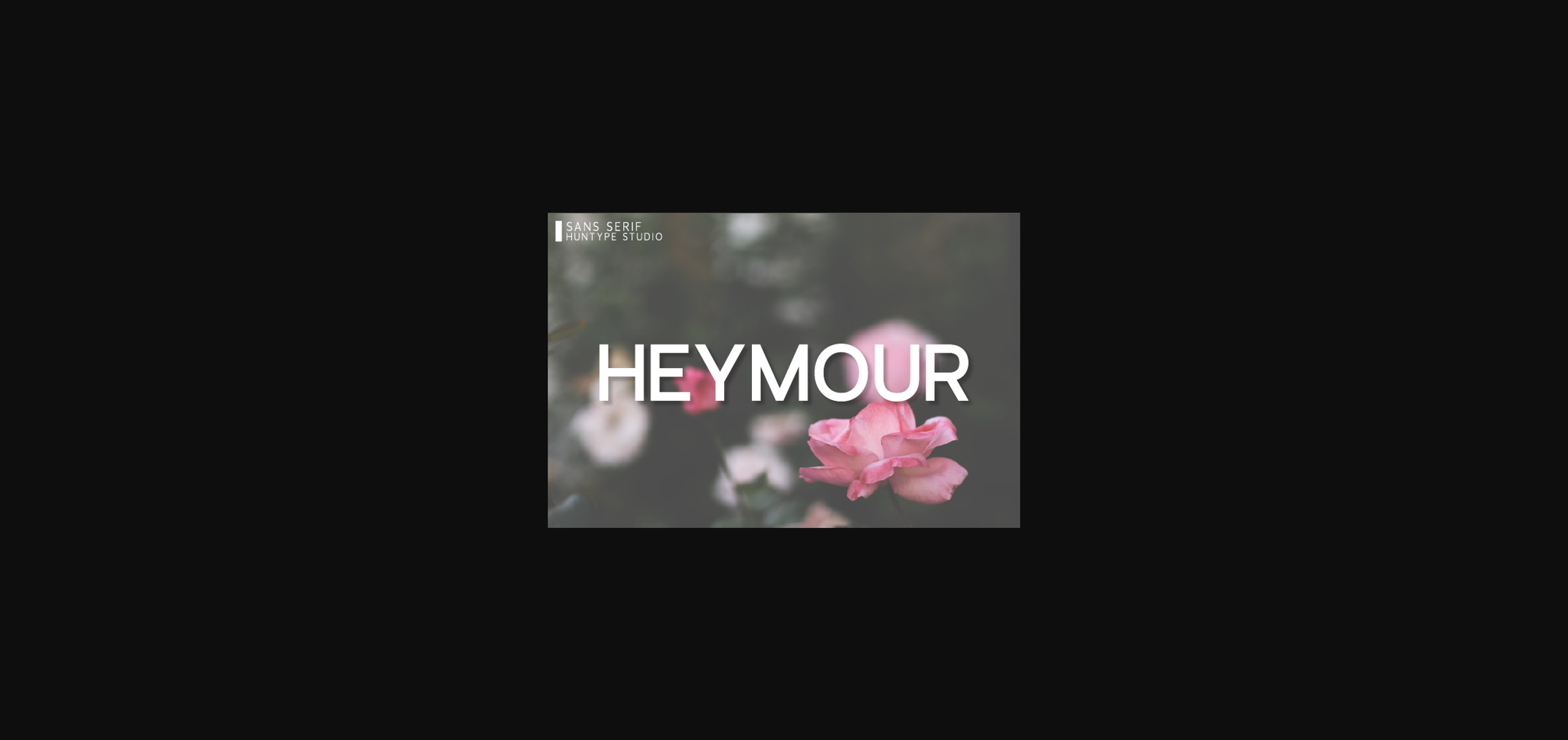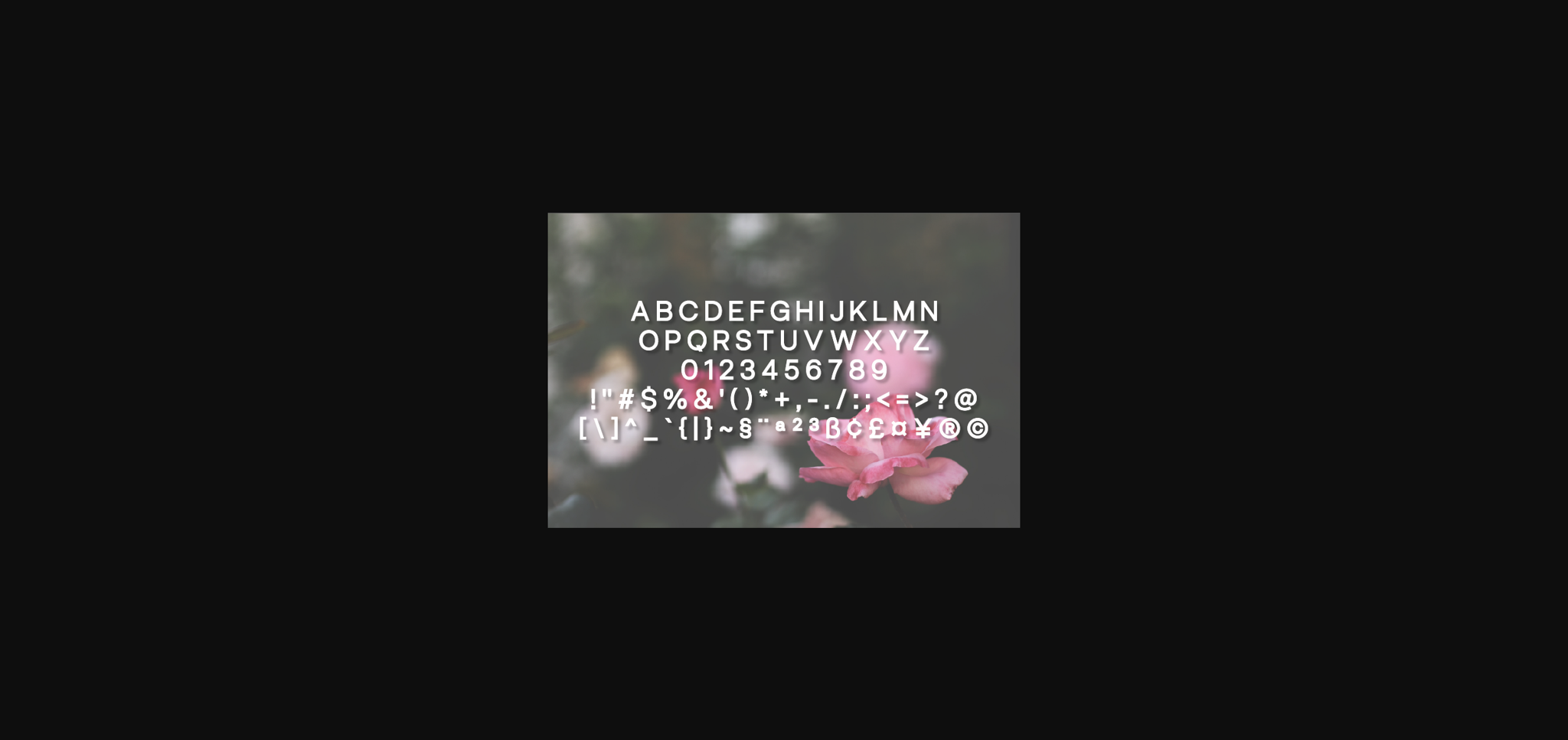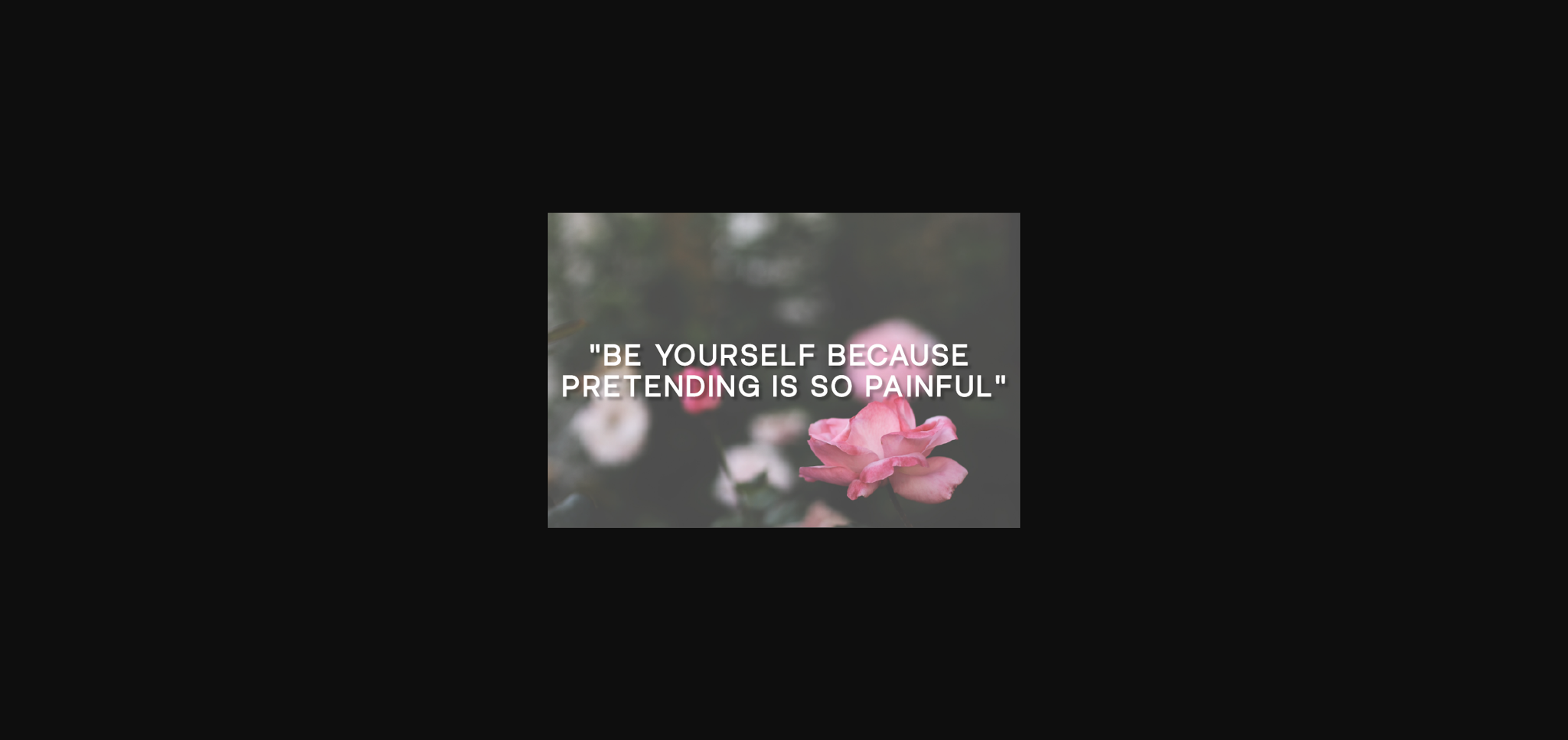
About Heymour Font
Heymour is a minimal and neat sans serif font. It can easily be matched to an incredibly large set of projects, so add it to your creative ideas and notice how it makes them stand out!